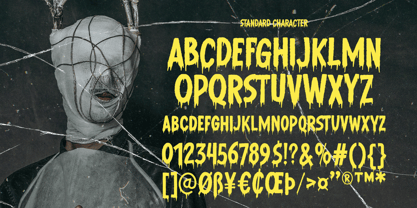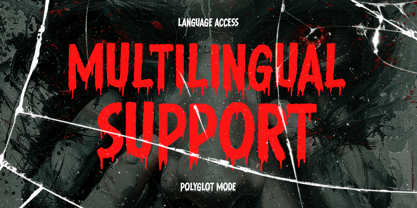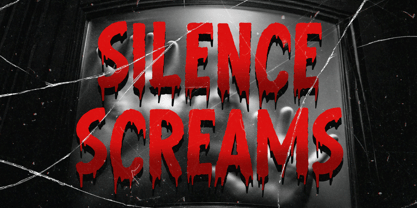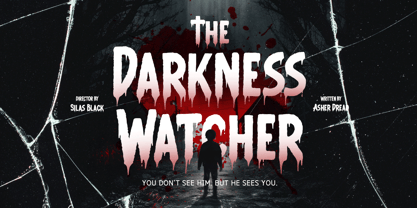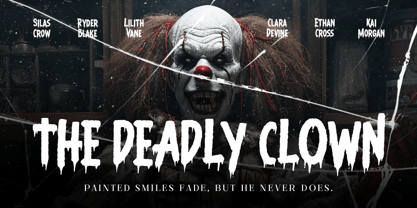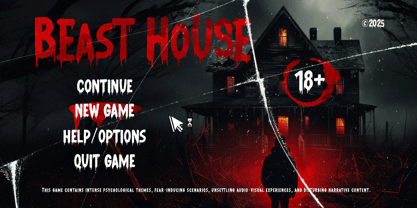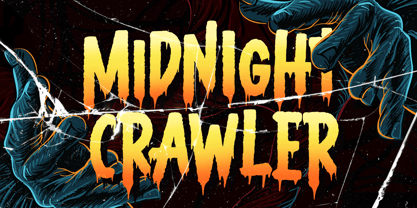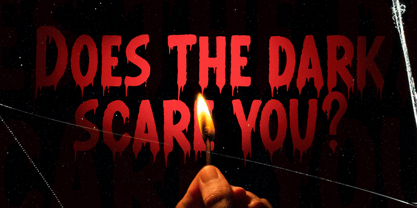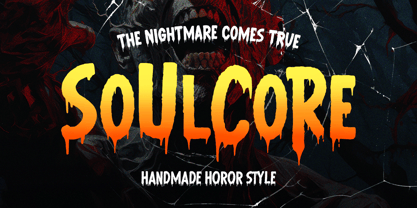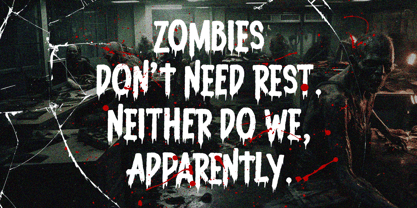
Soulcore
The Soulcore Font Family was designed by Ahmad Ramzi Fahruddin and published by Arterfak Project. Soulcore contains 1 styles. More about this family
Introducing Soulcore – A Terrifying Typeface for Fearless Designs
Dare to design with Soulcore, a spine-chilling display font forged in the shadows of your darkest imagination. With jagged strokes, distorted forms, and raw intensity, this typeface is crafted to invoke unease, suspense, and a perfect dose of chaos.
Whether you’re designing a horror movie poster, book covers, posters, game, or haunted branding, Soulcore screams with personality. Each letter oozes with tension and blood, making it the perfect choice for those who dare to stand out.